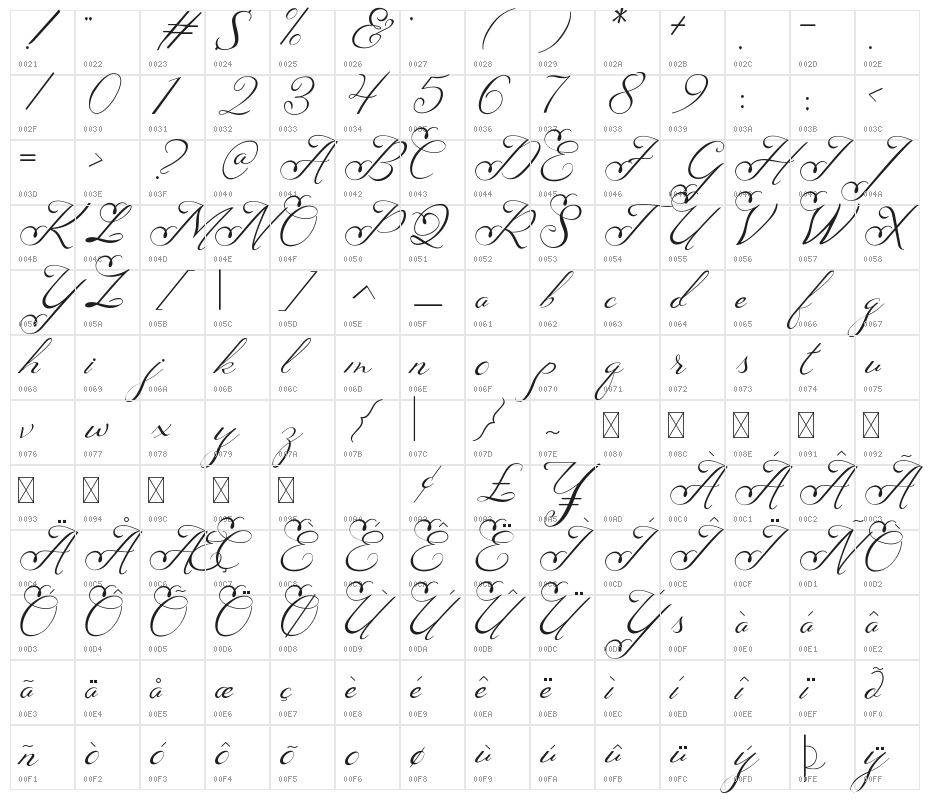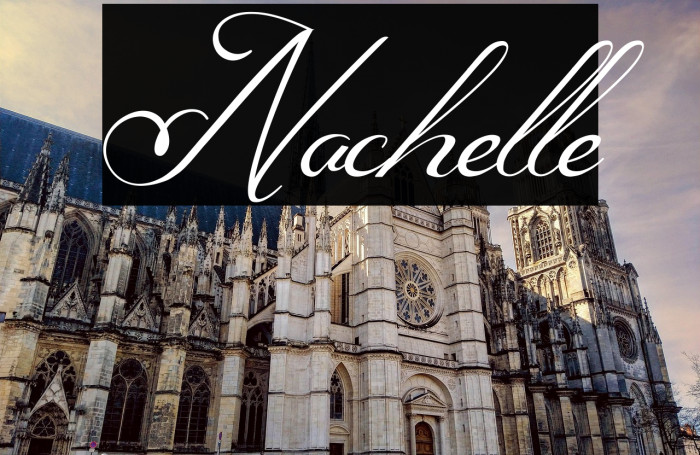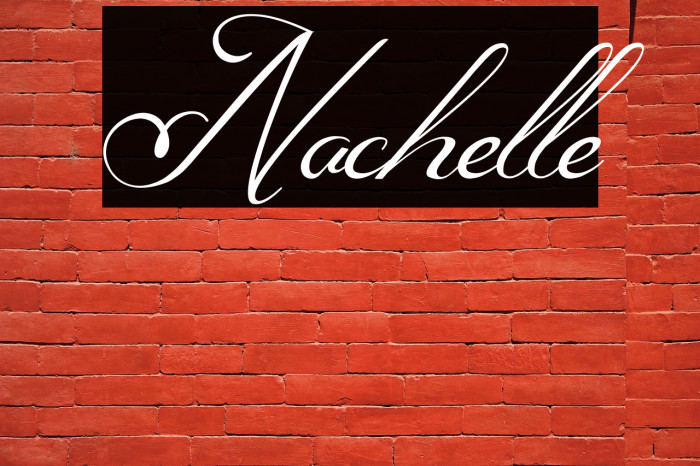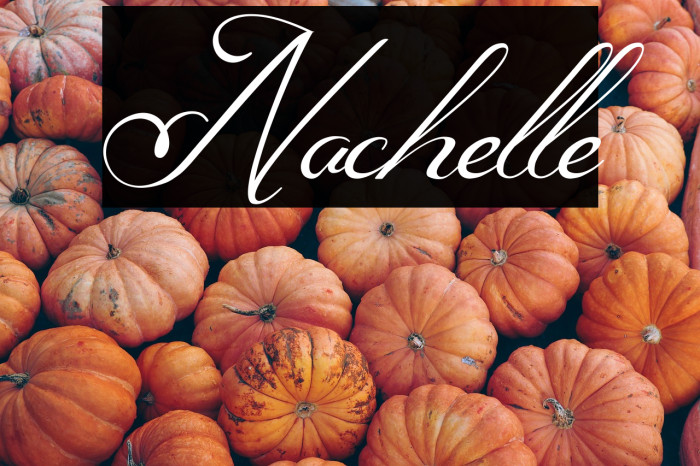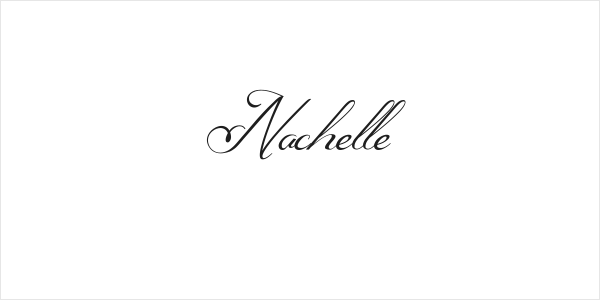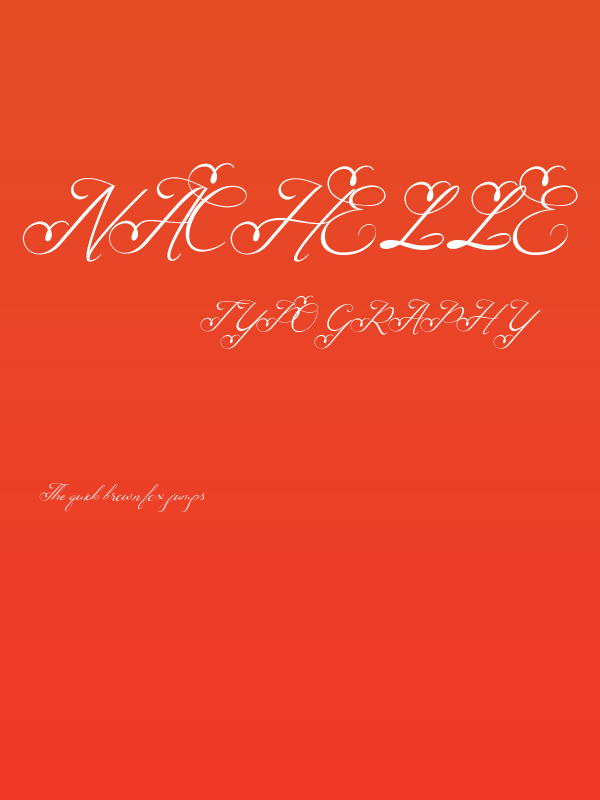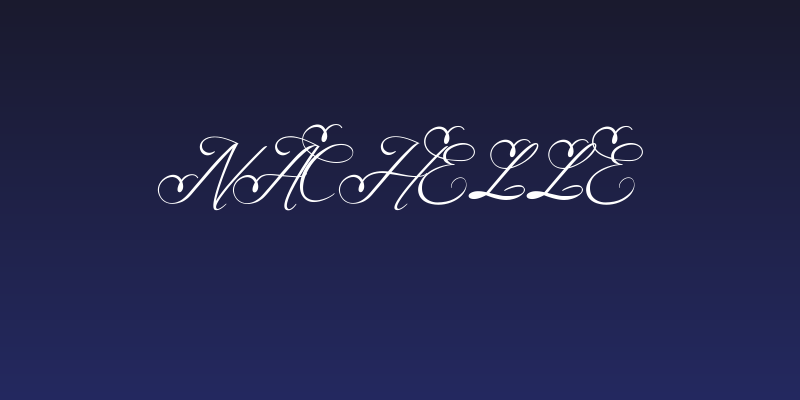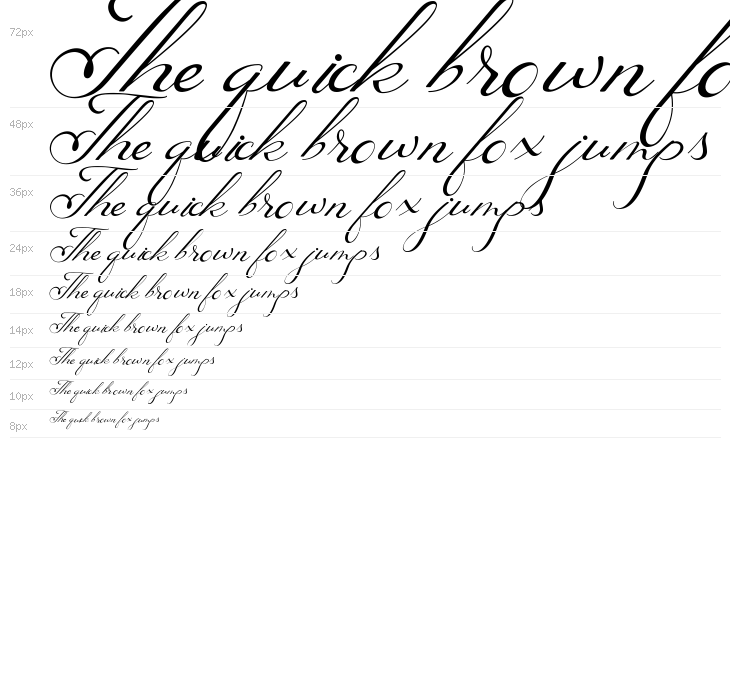
Nachelle Font
Nachelle Description
This elegant script font features intricate, flowing lines and ornate flourishes, creating a sense of sophistication and grace. The uppercase letters are adorned with decorative loops and swirls, adding a touch of luxury and refinement. The lowercase letters maintain a consistent slant, enhancing the cursive style, while the numerals are elegantly curved, complementing the overall aesthetic. The special characters are equally ornate, fitting seamlessly with the rest of the font. This font is ideal for projects that require a touch of elegance and formality, such as wedding invitations, luxury branding, or high-end product packaging. Its delicate strokes and artistic flair make it a standout choice for any design that aims to convey sophistication and style.
Overall StyleElegant, Sophisticated
Use CaseLogos, Invitations, Branding
Proposed ProjectsWedding invitations, luxury branding, high-end product packaging.